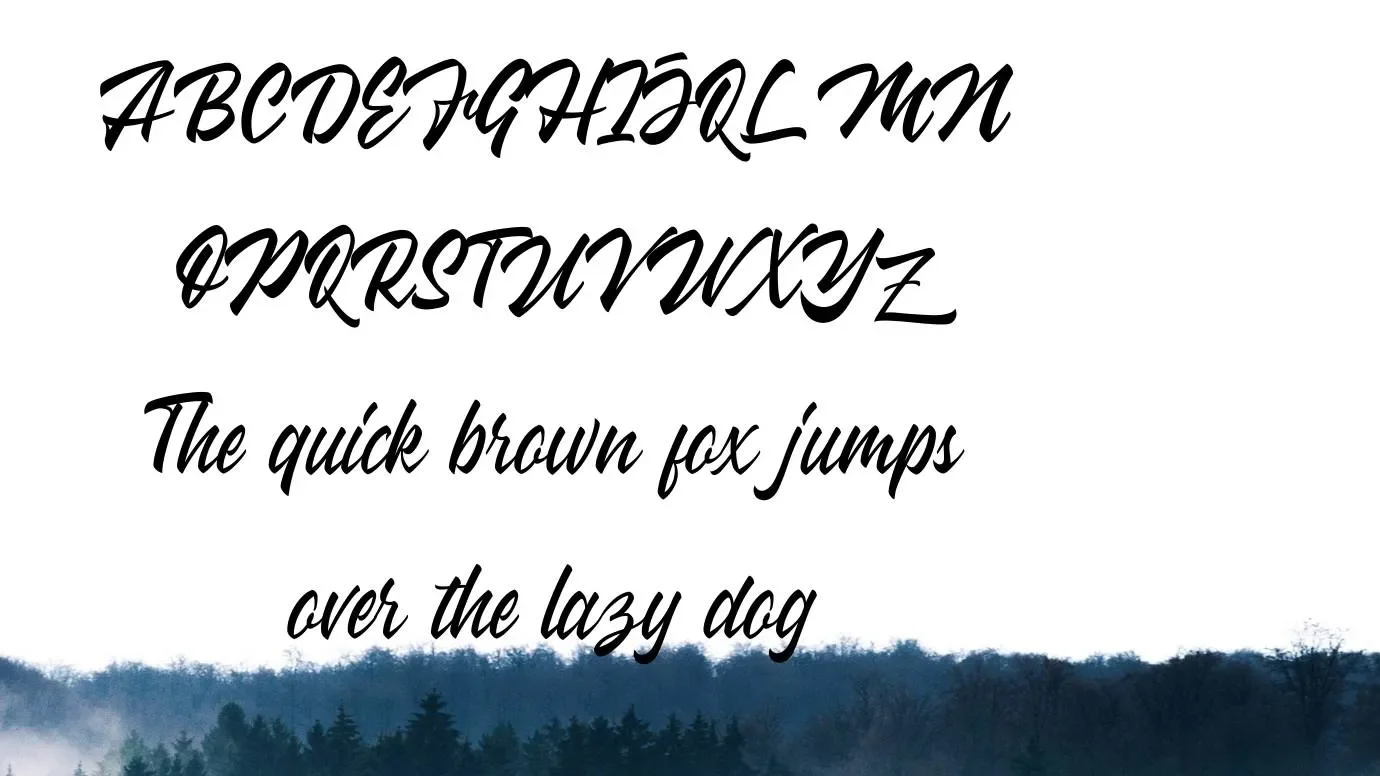
Wakanda font is a brush script typeface that presents a unique look to your modern designs. It has smooth, clean, and elegant letterforms. It was shared by Creatype Studio and originally designed by Rian Rahardi. This stylish typeface is the most demandable because of its light shapes and attractive look. It is solid, well-balanced, and provides a personal touch to designs when used with the pairing of Black Panther Font.
This typeface comes in 4 weights including regular, bold, italic, and semibold, each weight consisting of a full character set including uppercase, lowercase, numerals, general punctuations, symbols, and updated icons that will be great for any texture content when used with Corbel font. It has also standard glyphs, high-quality ligatures, and swashes along with immense language support including all European characters.
The textures of this typeface seem to be created some handwritten techniques which give us a natural feel. This font is going to be suitable for greeting cards, brands, product packaging, t-shirt designs, quotes, ads, etc. It can be also specified in the CSS family. It has an online font generator tool that can be used for quick designs or converting simple text into graphics.
Reason to Use Wakanda Font
Hand-drawn typeface is always favorable for many designers. This font is also adopted by many corporations and they are regularly utilizing this coolest font for many different purposes. On numerous platforms, it has omitted good impressions. It is going to be the perfect font for creating stylish logos, posters, book covers, advertising, social media posts, branding projects, product packaging, and many related designs where you need a handwritten feel.
Due to its gorgeous look and decorative look, you can also use this font to create bold headlines or titles as well as short or lengthy paragraphs. You can also create fashionable headings for your websites, Newspapers, magazines, products, etc. It can be also utilized for your Youtube Thumbnails, assignments, reports, invoices, and many more.
Wakanda Font View
Wakanda Font Family (Includes Total 4 Typeface)
- Wakanda Regular
- Wakanda SemiBold
- Wakanda Bold
- Wakanda Italic
What font goes well with Wakanda font?
This font is also perfect for its pairing functions and you can create such interesting designs when used with the pairing of Black Panther Font and Corbel font.
What type of font is Wakanda?
This font belongs to the script typeface family, designed and shared in 2018 by Creatype Studio. This font family comes in 4 weights including regular, bold, italic, and semibold.